Create Charming Designs with This Retro Fonts Bundle from Dharmas Studio!
There are plenty of retro fonts available online. However, searching one by one is time-consuming, and purchasing each font can be expensive. However, you can opt for a retro fonts bundle that comes with a few retro fonts at a lower price to save time as well as money.
Characteristics of Retro Fonts
Despite displaying an old and classic style, retro fonts seem to never go out of style due to their nostalgic appeal and timeless charm. These are the characteristics that make the retro font stand out.
1. Serif font
Vintage font often uses serif features, which are the small strokes at the end of the characters to enhance the classy style. Classic serif styles such as slab or bracketed are the most common styles used in retro fonts.
2. Ornate details
Another unique characteristic of retro fonts is the addition of ornate and decorative elements to the characters. The elements can include curls, flourishes, and other intricate details.
3. Script elements
Script elements are also common in retro fonts, which give them the look of a handwriting or calligraphy style. This type of element not only adds elegance but also enhances the feeling of warmth to the typeface.
4. Condensed or extended forms
For display purposes, retro fonts often use condensed or extended forms, which give the typeface a distinctive shape. This type of retro font is great as a display because of its chunky appearance, making it highly visible.
Fonts Included in this Retro Fonts Bundle
In this retro fonts bundle from Dharma Studio, you will get the 20 best font families that you can use for various design projects such as brand identity, packaging, logo, book covers, posters, and many more. Here are the 20 fonts offered in this bundle.
1. Average
Despite the name, this font is far from average. This unique serif typeface comes in 3 styles including Regular, Normal, and Italic, which give you flexibility in using them. However, with its simple letterforms, Average is great when combined with a more decorative typeface such as script.
2. Bon Foyage
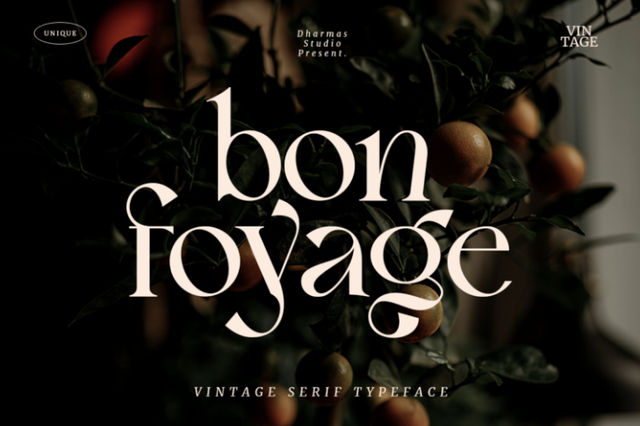
Bon Foyage has more decorative looks compared to the previous font, Average. These unique letterforms come with beautiful glyphs that will help you create an impact on your design project. Combine Bon Foyage with simpler fonts to create a balanced typography.
3. Bright
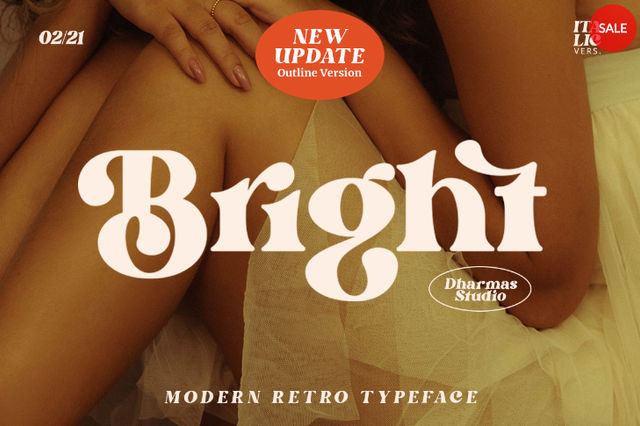
The chunky letterforms with swash make Bright a great display font. This font also comes with 50 unique alternates and ligatures, giving you extra flexibility of use. Bright includes 3 interesting styles, they are Regular, Italic, and Outline.
4. Brotherhood
This font only comes in Regular style, however, its beautiful letterforms are great for display purposes. The monoline display sans font is easy to read but has unique shapes that will help you easily attract attention.
5. Cheria
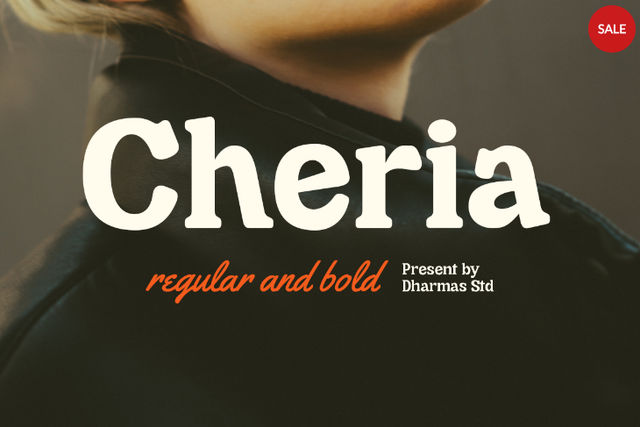
Cheria is another font in this retro fonts bundle with chunky letterforms that are great for display design. It comes with regular and bold styles, so you can easily adjust it to suit your needs. With the simple shape, Cheria will also look good in a body text.
6. Cyrano
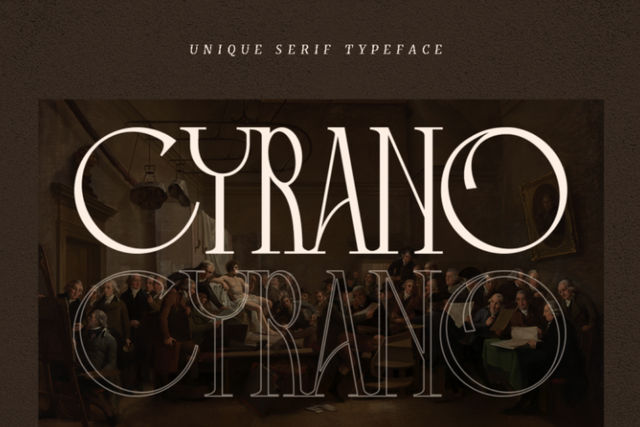
If you are looking for vintage fonts with fashionable and chic designs, you can use Cyrano, which is also included in the bundle. This European-style font comes in Regular only, but it will make a perfect display text.
7. Etnyca
Entyca is a stylish typeface with a beautiful typeform perfect for display. This font comes in regular and italic styles with unique uppercase and lowercase letters. Use this font to add more characters to your design project.
8. George
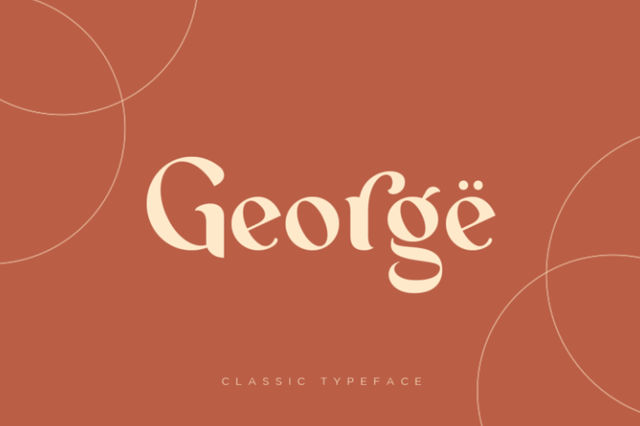
You will also find George font in this retro fonts bundle. George is a classic serif font that offers a bold and elegant style. The vintage flair enhances the classic and stylish look of this typeface.
9. Gunydrops
Vintage fonts are not only classic and elegant, but sometimes they can also be groovy and playful, like this Gunydrops font. This bold and playful font offers the 60s and 70s feel that will make your design project look extra cheerful.
10. Kelpo
Another groovy font in the retro fonts bundle is Kelpo, which is inspired by the 70s style. The font has the old cartoon style, which will be perfect for your groovy-style poster. It only comes in regular and italic styles, but it has a bold look that will be great as a display text.
11. Margin
With the retro look and bold style, Margin offers a slightly traditional 70s style. This nostalgic font has regular and italic style only, but it already has a bold look, so you can use it easily as a display text.
12. Mattire
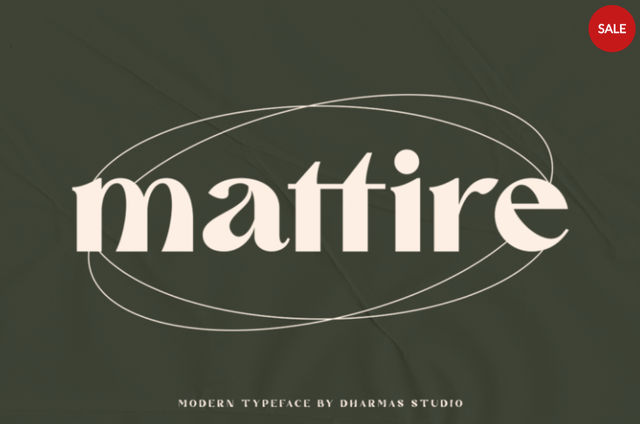
When you look at this font, you will agree that Mattire can pass along as both a modern and classic typeface. The font is bold with minimal decoration, which will make a perfect header.
13. Minya
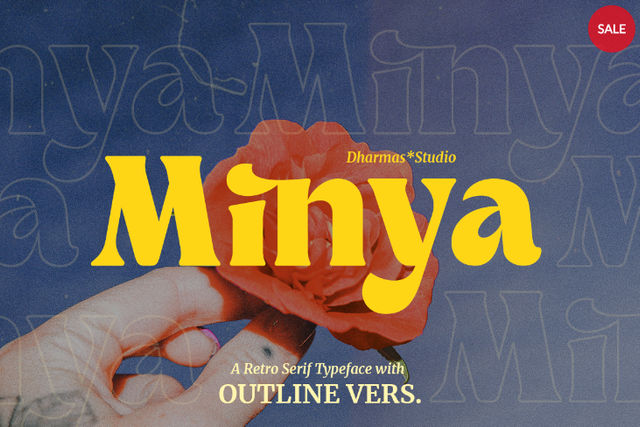
Another font with a retro and modern look in this bundle is Minya, a bold serif font that gives an elegant and nostalgic feeling. The font comes in 4 styles: regular, outline, italic, and outline italic.
14. Nambya
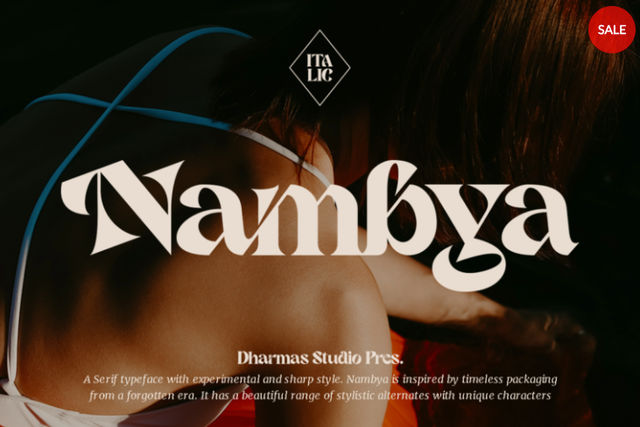
If you’re looking for a sharper style, then Nambya can be a perfect choice. The experimental style gives this font a unique look and will help your design stand out and be unforgettable.
15. Night Empty
Night Empty is the font that you’re looking for to create a 70s retro look. The soft, bold, and italic styles are perfect as a headline for your poster or other display purpose.
16. Nighty
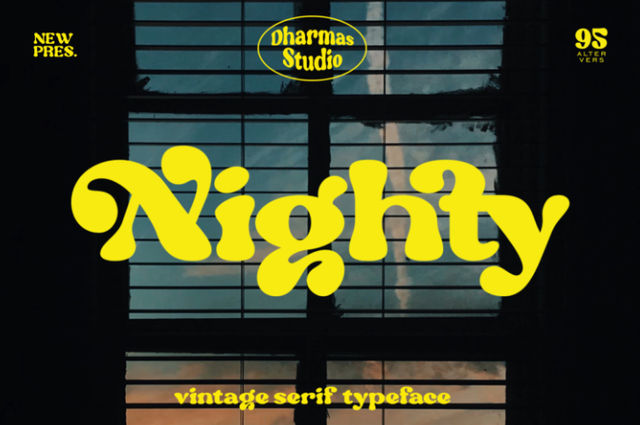
This font also offers a groovy 70s vibe with this chunky and playful typeform. This font will bring out the nostalgic feeling from the 70s era and look perfect for your 60s-70s-themed design project.
17. Replay
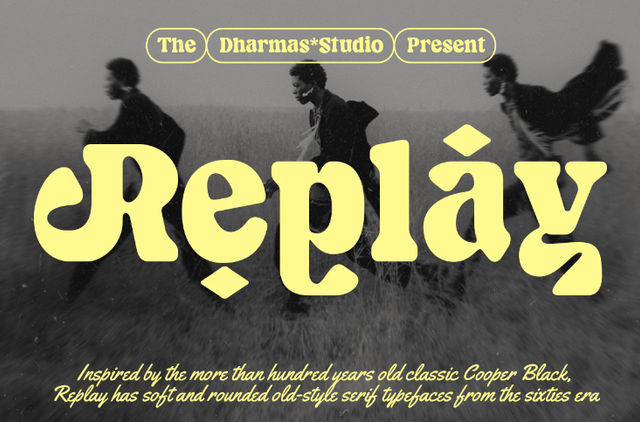
Replay is a simple, rounded, bold font that gives a clean and neat look. This versatile font is perfect as a display text as well as body text. The rounded and chunky style will remind you of the 60s era.
18. Swipe
In this retro fonts bundle, you will also get the Swipe font, which has a fun and playful look. It comes with a soft, bold shape in regular and italic style that will look perfect for any design purpose.
19. Salty Mussy
You will love this Salty Mussy font for a quirky and twisted design look. It has a psychedelic style that brings back the 70s.
20. Transcity
Last but not least is Transcity, a neat and fashionable which makes it perfect for invitations, advertisements, and many more. This vintage font combines modern and playfulness, making it versatile for any use.